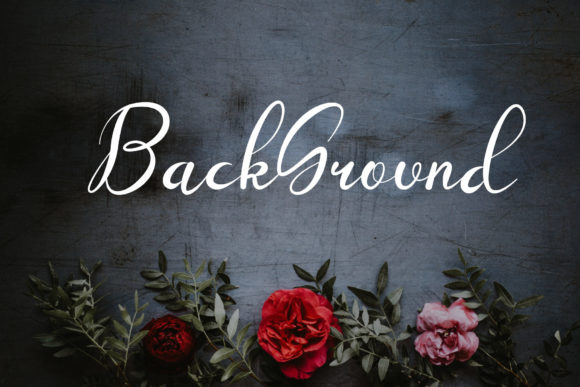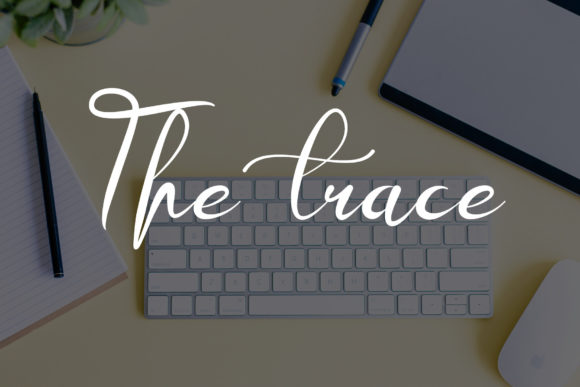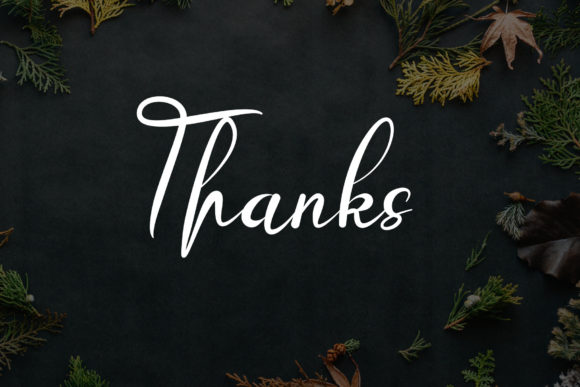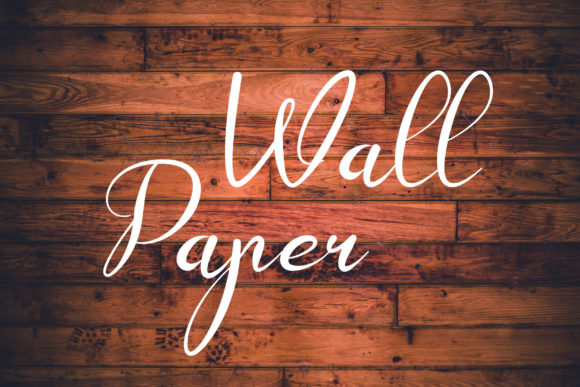
About Setup Font
Setup feels equally charming and elegant. It looks stunning on wedding invitations, thank you cards, quotes, greeting cards, logos, business cards and every other design which needs a handwritten touch.